I’ll be the first to admit, I am absolutely terrible at matching fonts together, which is one of many reasons why I love these playful font duos so much!
I loooove collecting fonts. Each of them is incredibly unique, and there is always a perfect font for whatever project you’re doing! But what if you want to add a little more interest to your project? Combining two different fonts is the perfect way to make your project really stand out! You can emphasize certain words and phrases, or just plain jazz things up!
But how to you know which fonts look good with which fonts? Beats me. But luckily for me, there are font duos. These fonts are both gorgeous and perfectly coordinated! For this post I’ve picked fonts of the fun variety. I have another post completely dedicated to elegant signature font duos, if that’s more up your alley.
But here? Unique and playful are the goal! You’ll also not find very many modern calligraphy/sans serif font duos. Those are nice, but I’m getting just a little bored of them right now. I feel like I just just said something blasphemous…
Anyway, I hope you love these fun fonts as much as I do!
Now for my favorite playful font duos!
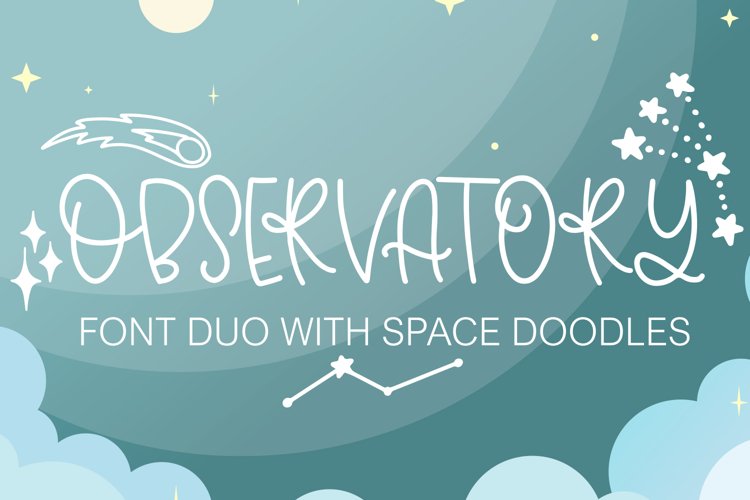
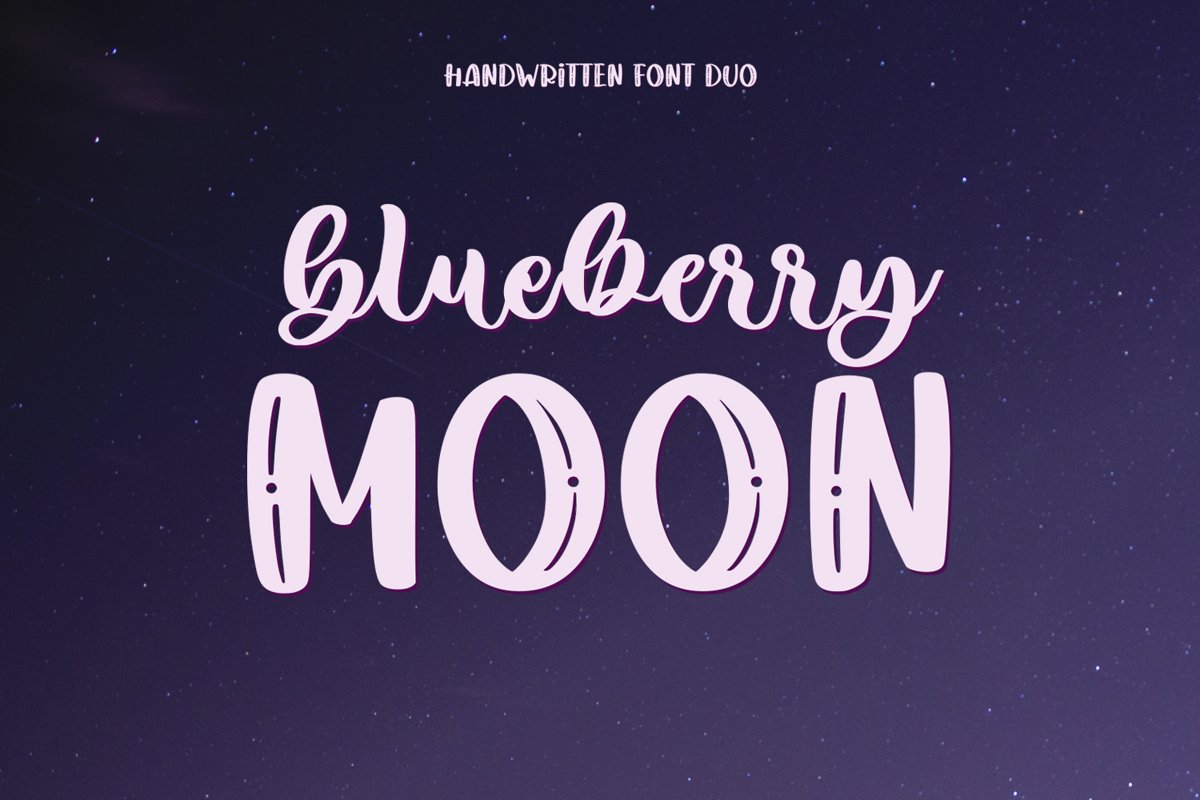
Aren’t these so cute? My kids would particularly love the Mermaid and the Observatory font duos. Just like your average little girls, they love all things mermaids, and my oldest particularly loves outer space!